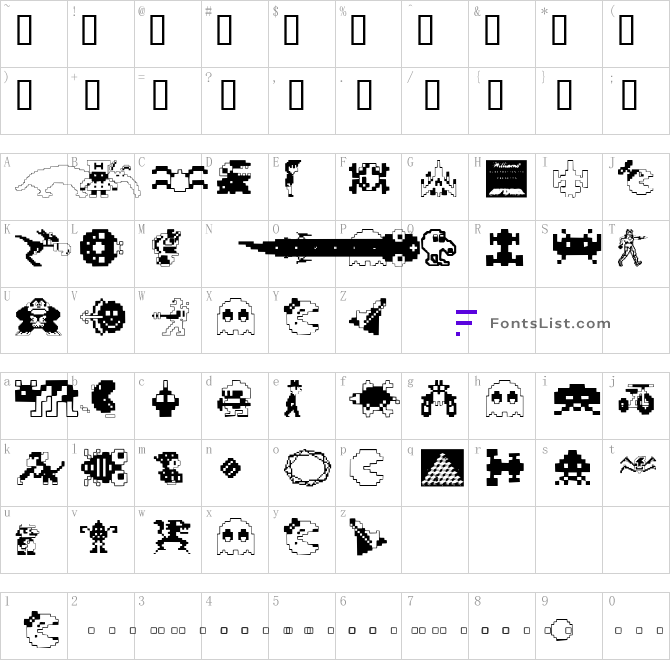
- Font Name:Arcade
Arcade.ttf is a very beautiful artistic font, Arcade.ttf is widely used in the design and printing of various books and pictures,Arcade.ttf has a strong visual impact,Arcade.ttf is a commonly used font in newspapers, magazines and books, and is used in posters, e-commerce Poster design, store design, logo design, font design and other fields.Arcade.